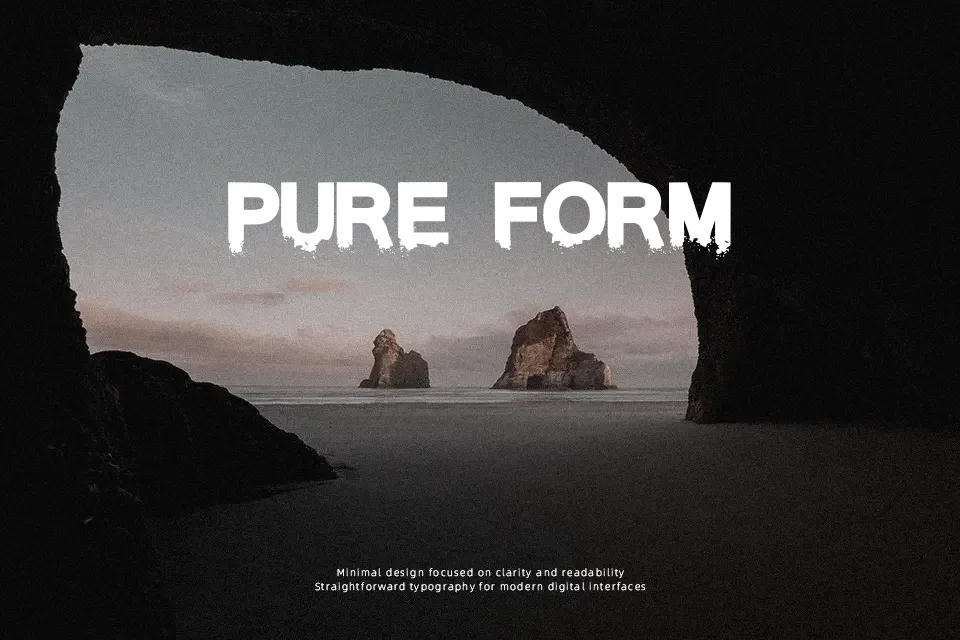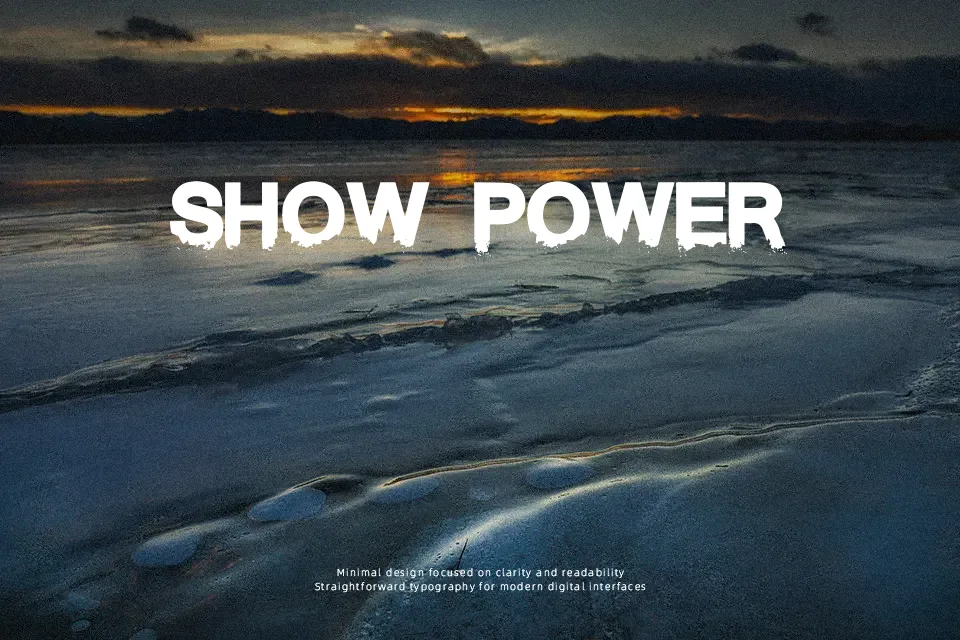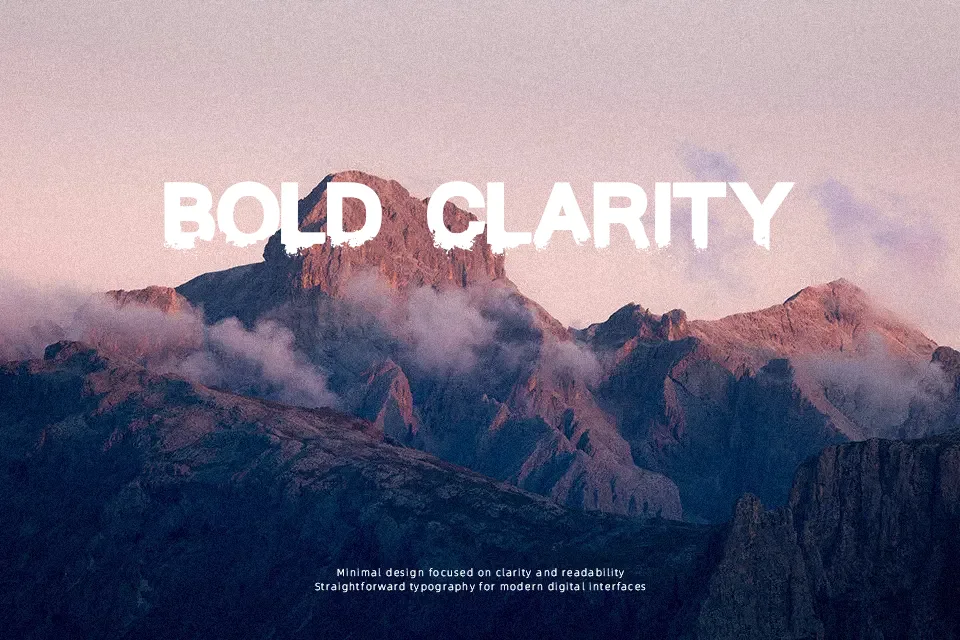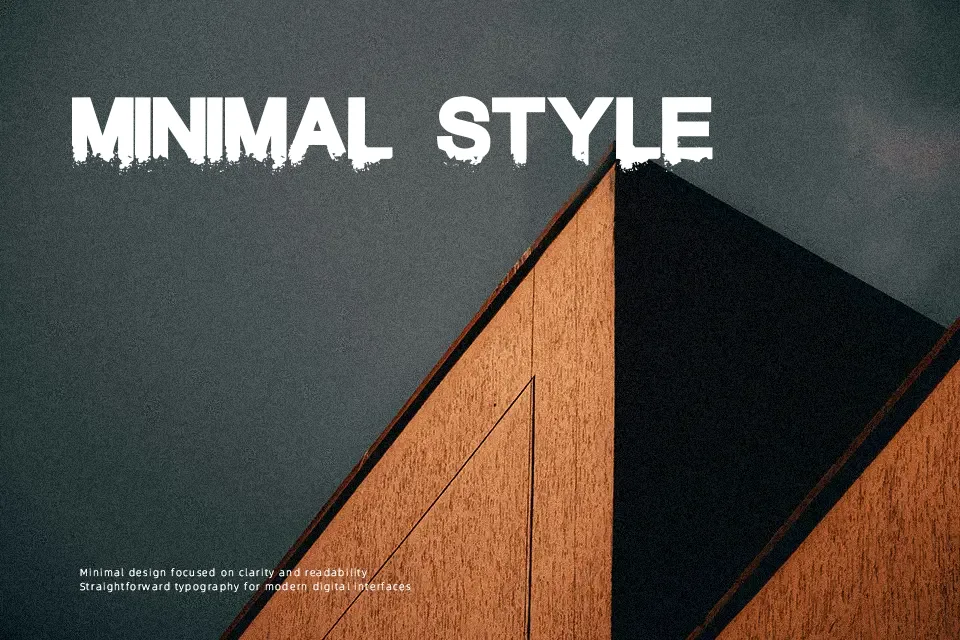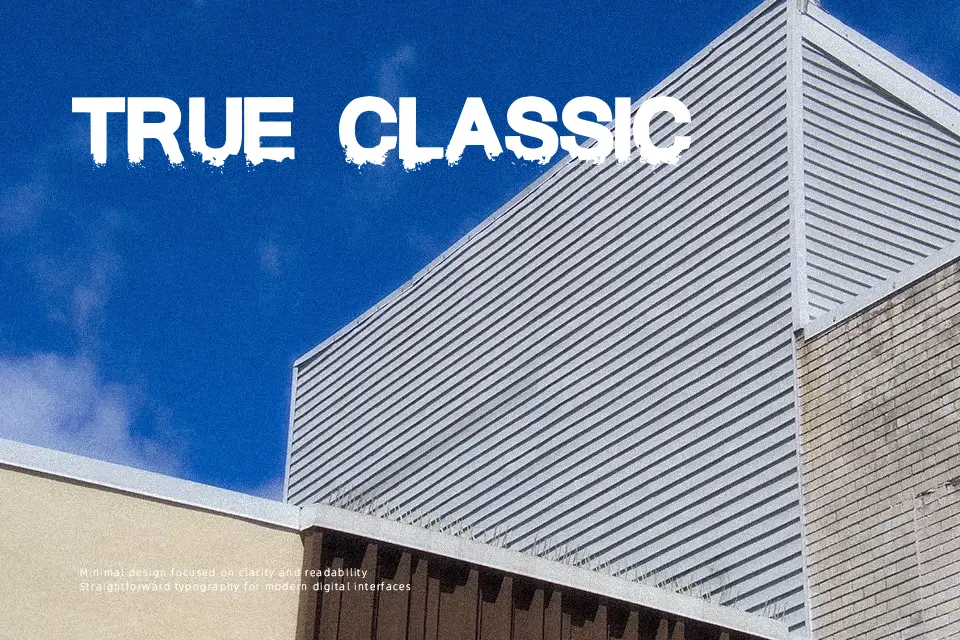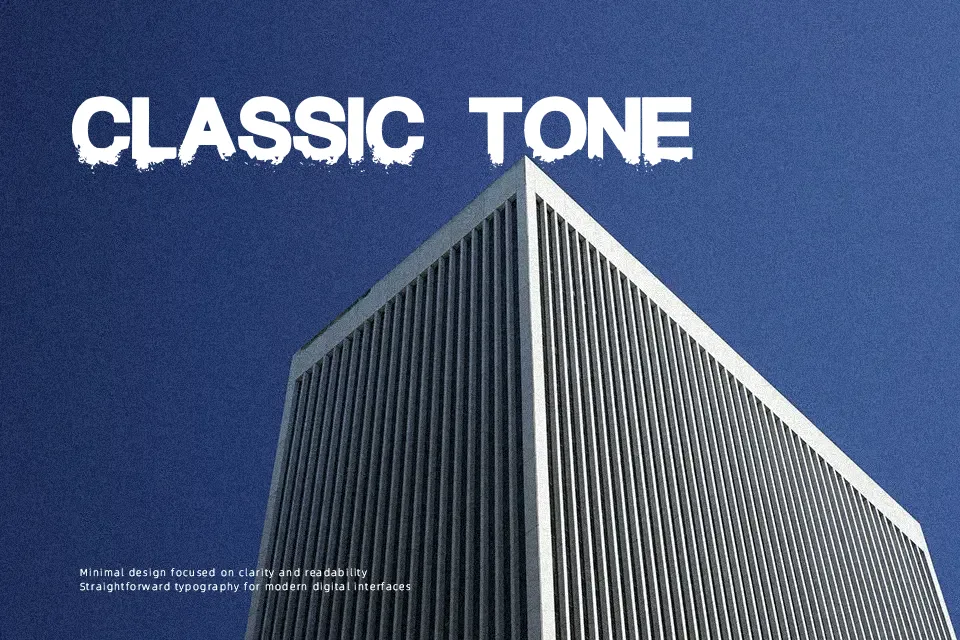
They Perished Font
Designed by Fontmonger
They Perished Font showcases irregular, heavily corroded letterforms defined by crumbling contours, decayed stroke terminals, and uneven solid massing. Each glyph exhibits substantial weight and compact character spacing, establishing an imposing, chaotic rhythm suited for high-impact title treatments. Proportions remain squarish and assertive across the all-caps roster, lending considerable tactile grit to haunted attraction promotions, survival video game interfaces, and grim music packaging. In practical application, the stark erosion preserves unmistakable silhouette drama whenever set at commanding poster sizes. However, the extreme textural degradation makes the typeface entirely unsuitable for continuous reading, dense editorial paragraphs, or delicate interface captions where broken inner counters collapse into illegibility.
Best For: horror film titles, halloween event posters, heavy metal album covers, escape room flyers
Not Ideal For: continuous body text, mobile interface labels, corporate business documents, dense editorial paragraphs
Perfect for film, gaming, and halloween, with a bold and decorative style.